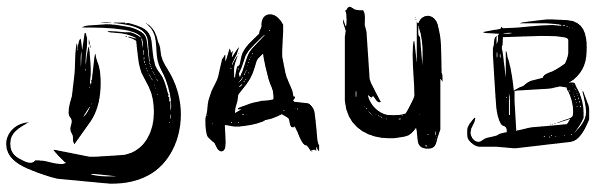
Daub
Daub captures the look of old-style graffiti—it's graffiti from the days when vandals used a brush and a pot of white paint. Not an airbrush or aerosol in sight. Use Daub to give headings and posters that rough, hand brushed look. Add real...